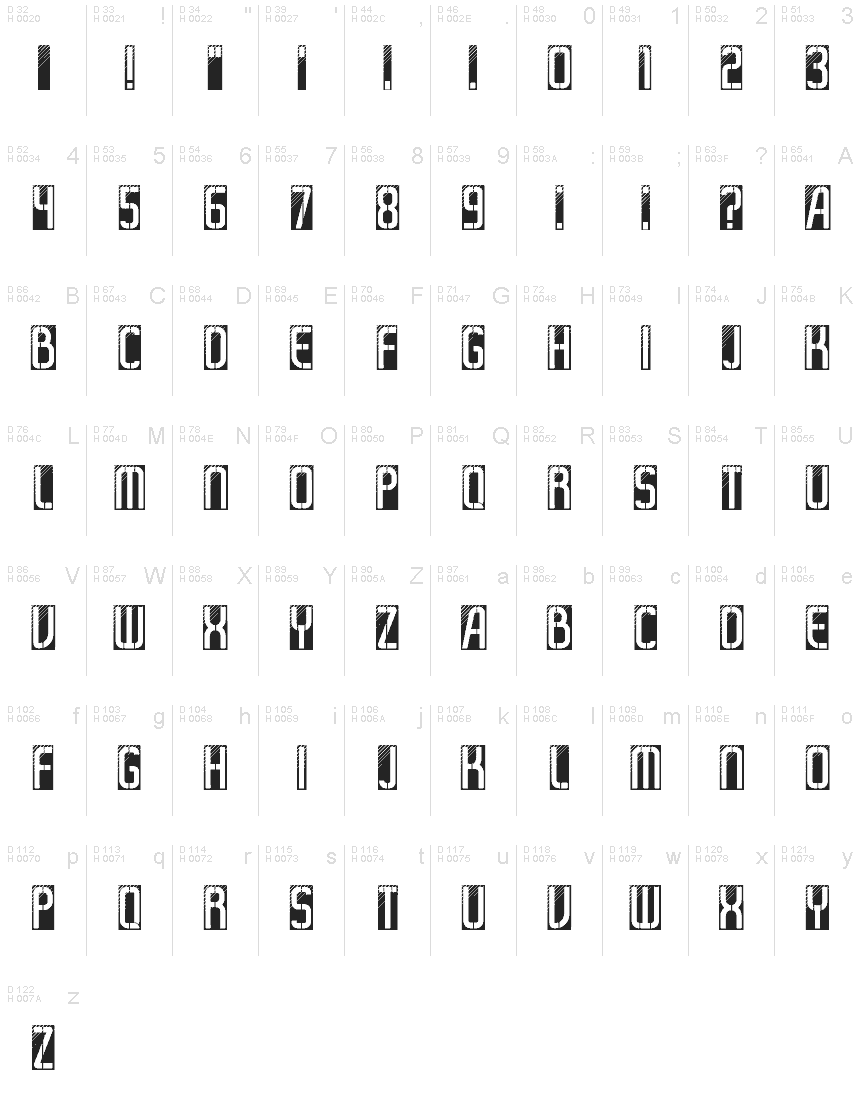
Scheduling Regular
Introducing Scheduling – a geometric sans serif display font created by Vladimir Nikolic. Its bold design with sharp edges makes it the perfect choice for sports titles and headlines, while its solid sans serif features make it ideal for movie posters, book covers and magazine design, and branding and apparel projects.
Add a touch of modernism to your posters, t-shirts and mug designs, or use the unique glyphs for modern branding projects.